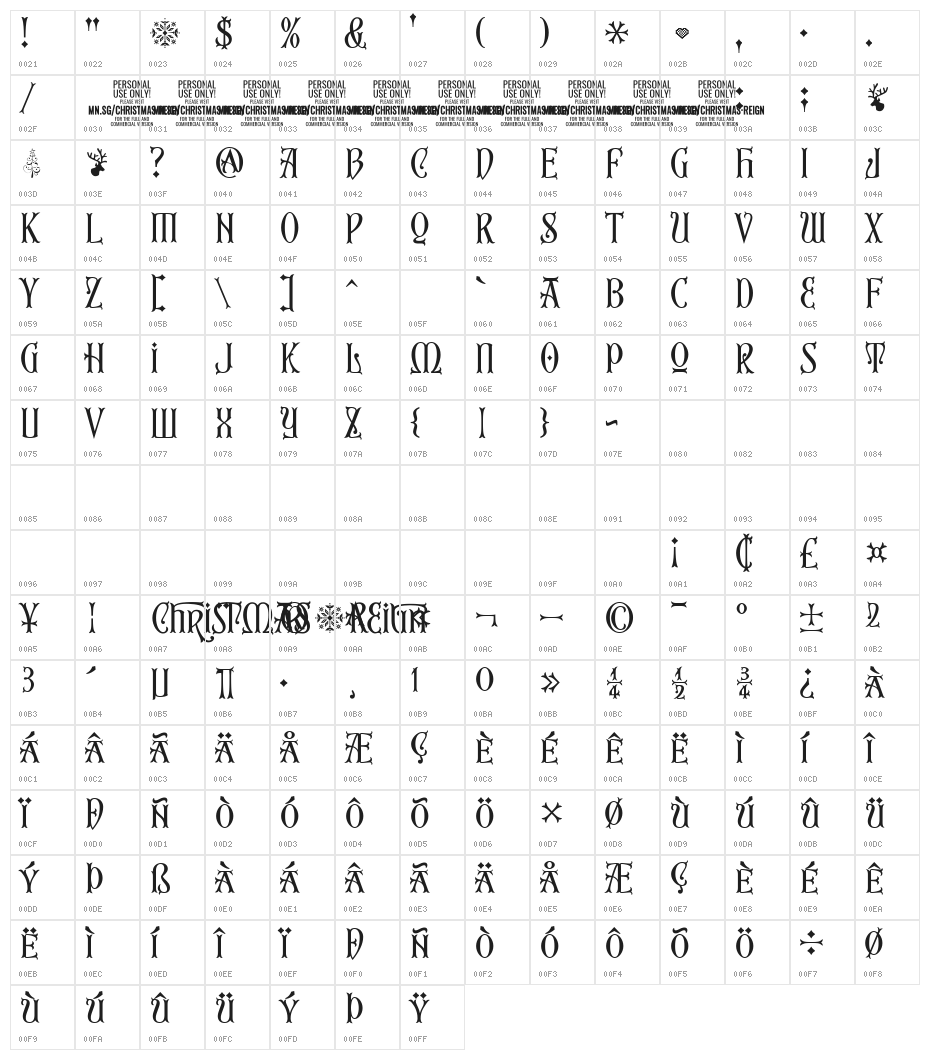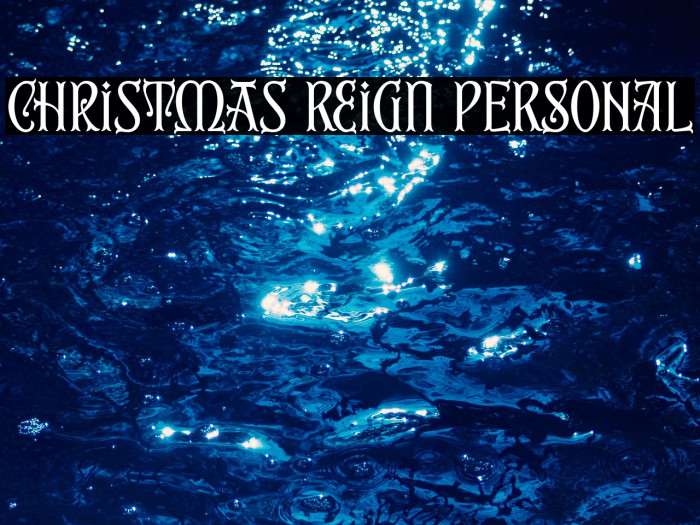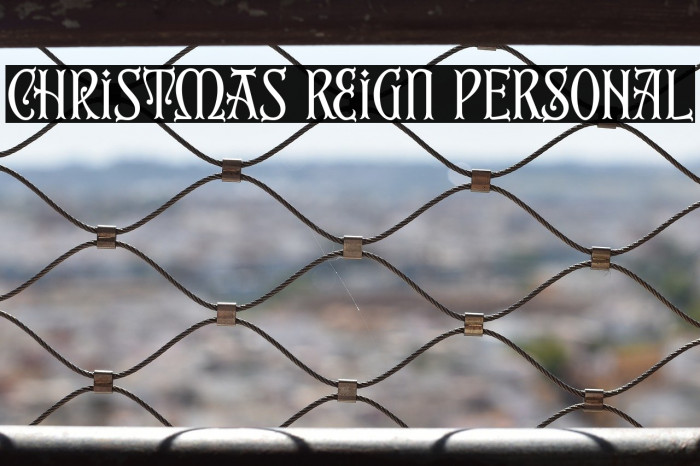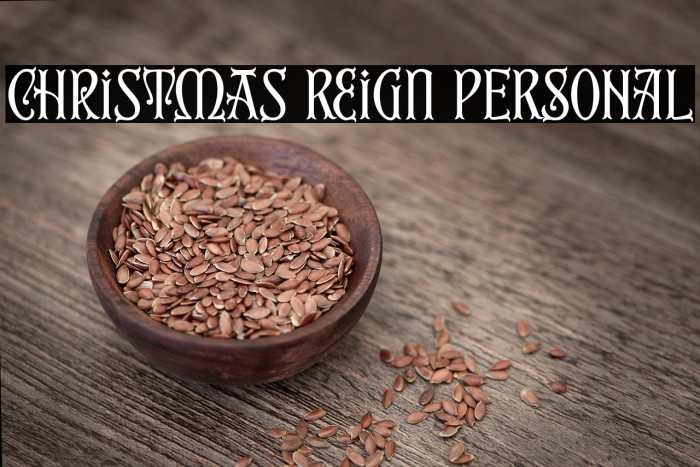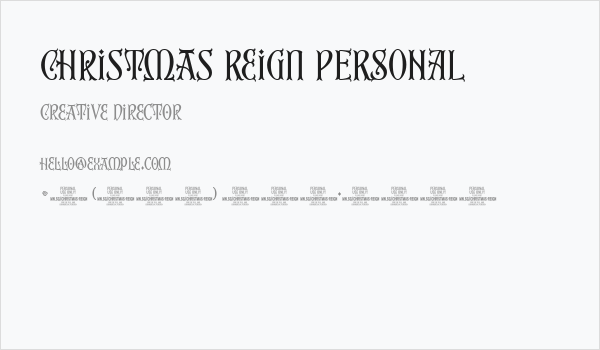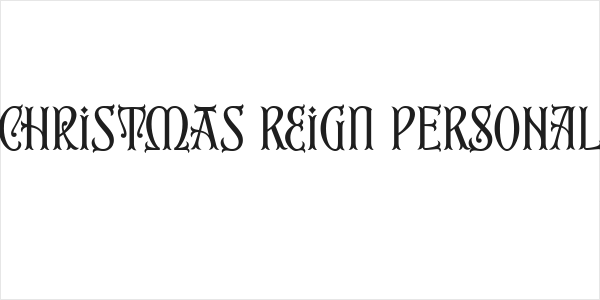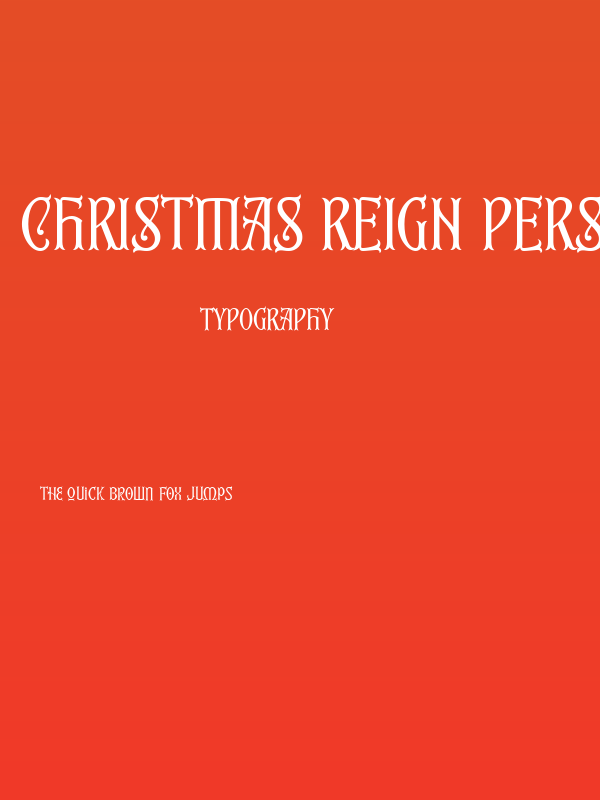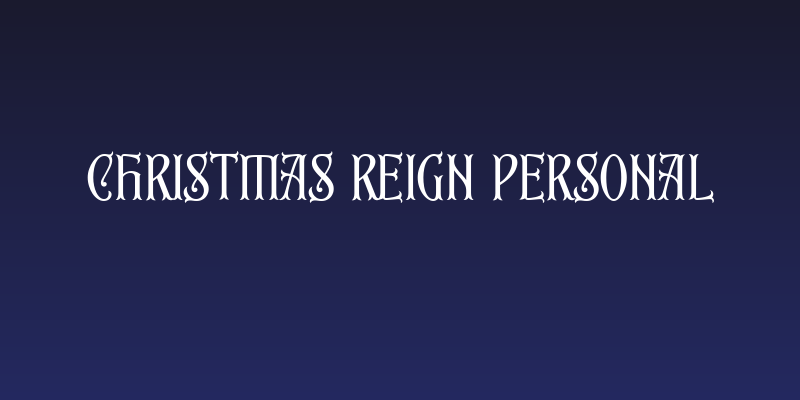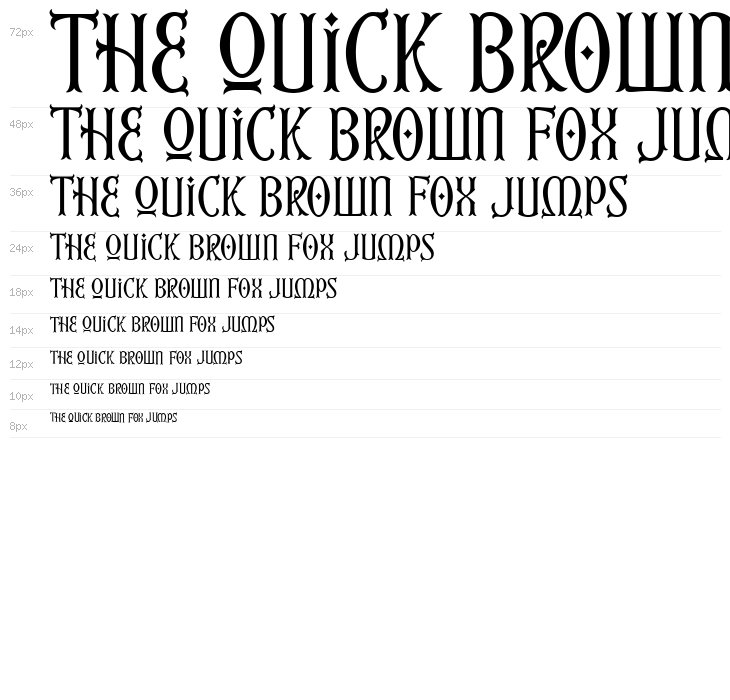
Christmas Reign PERSONAL Font
Christmas Reign PERSONAL Description
This font features a distinctive and ornate style reminiscent of traditional Blackletter scripts. The characters are embellished with intricate details, giving them a festive and regal appearance. The uppercase letters are particularly elaborate, with sharp angles and decorative serifs that evoke a sense of historical elegance. The lowercase letters maintain the same level of detail, ensuring consistency throughout the typeface. The numerals and special characters are equally ornate, making this font ideal for creating a cohesive and visually striking design. Its unique style is perfect for projects that require a touch of sophistication and tradition.